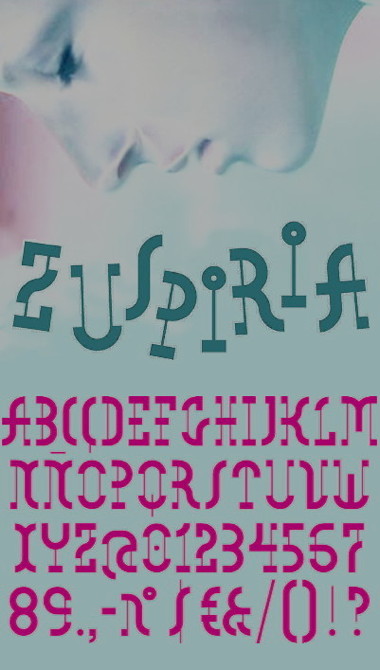
• You can find some alternates in the LC (C, I, J, Q, U) and others to improve the kern in pairs of glyphs like TA, AT, LT, LY, PA, RT, TS, etc. Try it, please.
You can find some alternates in the LC (C, I, J, Q, U) and others to improve the kern in pairs of glyphs like TA, AT, LT, LY, PA, RT, TS, etc. Try it, please.
This is awesome. Very interesting and pleasing shapes such as K and N and 4 and ! and & and # and $ and Œ. I love it.
So much to love in this very individualistic design - Bravo!!
Excellent unique fontstruction!
Wow. This is fantastic. Apart from creating this wonderful typeface, you've given new meaning to "semibold". 10/10